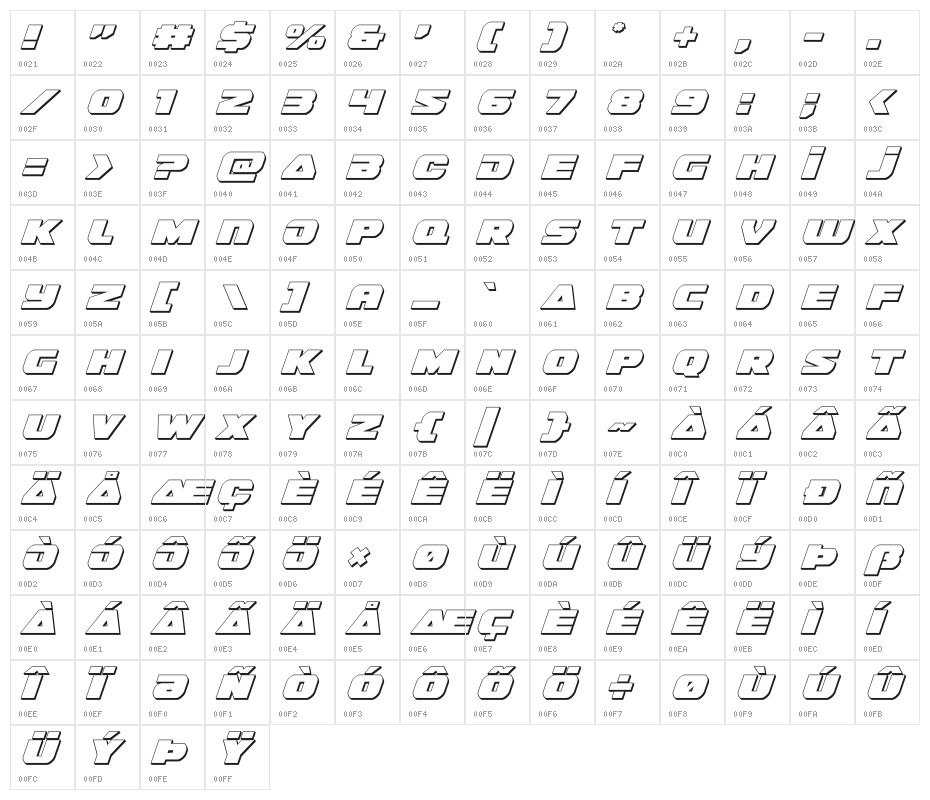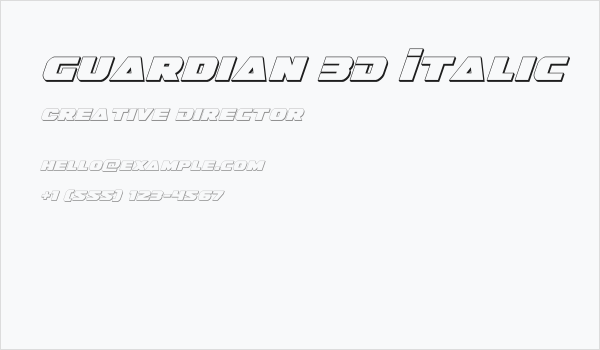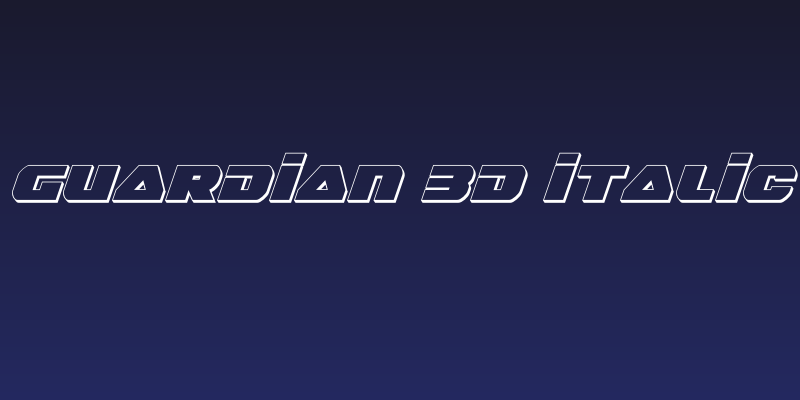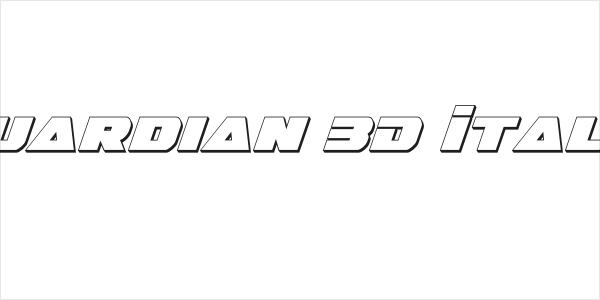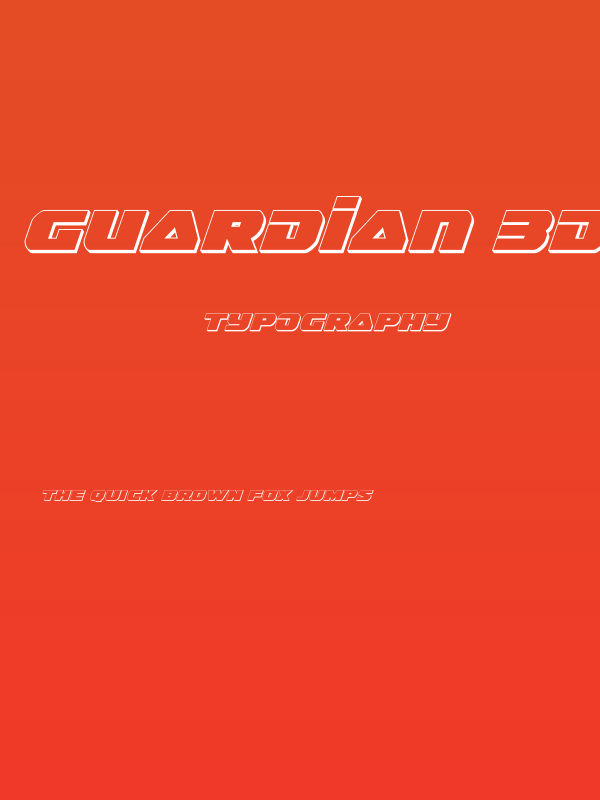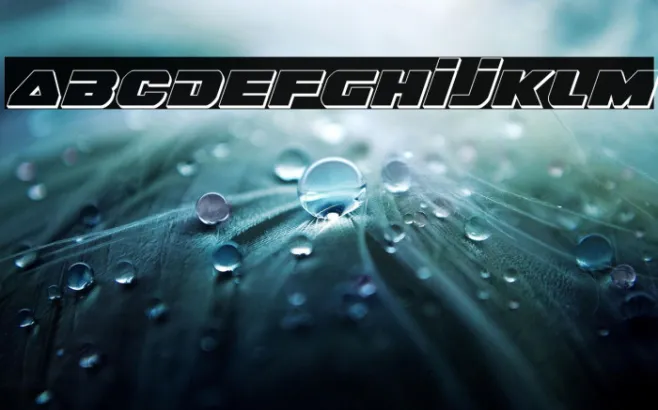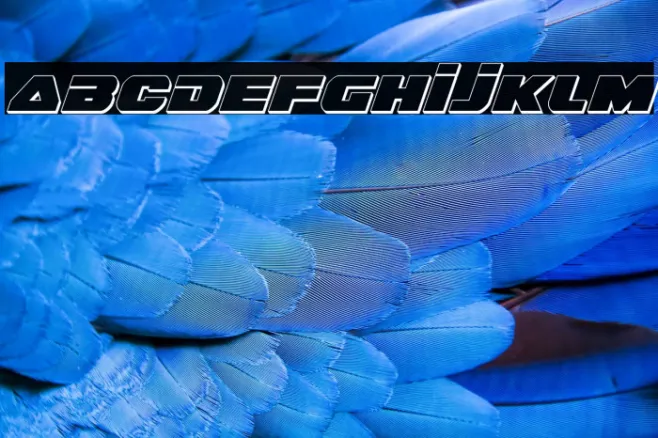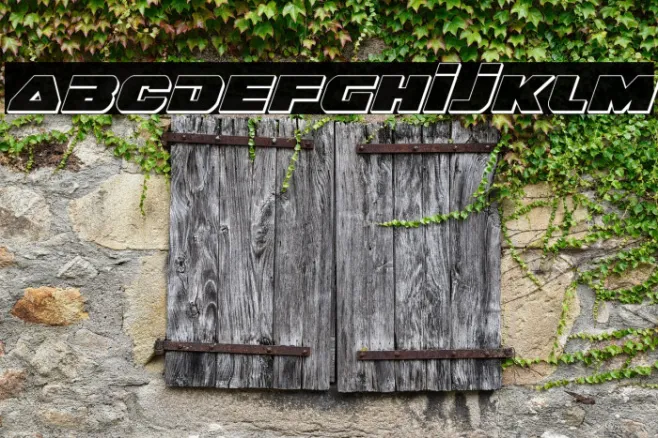
Guardian 3D Italic Font
Guardian 3D Italic Description
This font features a bold, three-dimensional appearance with an italic slant, giving it a dynamic and futuristic feel. The characters are outlined, creating a sense of depth and movement. The design is geometric, with sharp angles and clean lines, making it stand out for attention-grabbing purposes. The uppercase and lowercase letters maintain a consistent style, while the numerals and special characters complement the overall aesthetic. This font is ideal for projects that require a modern and impactful look.
| Proposed Projects | Ideal for video game titles, sci-fi movie posters, technology branding, and sports team logos. |